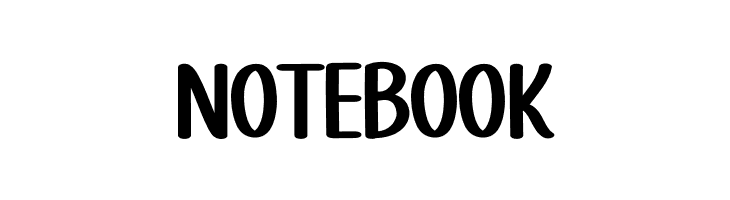
• NOTE BOOK 字体
( Fonts by Andi Moz )
A playful, rounded font with bold, smooth curves and a friendly appearance.
• Note Kids School 字体
A playful, handwritten font with bold, rounded characters and a whimsical style.
• Note Kids School 字体
A playful, hand-drawn font with bold, rounded characters perfect for fun and creative projects.
• Note Kids School Italic 字体
A playful, handwritten font with a bold, rounded style and slight slant.
• Note Kids School Italic 字体
A playful, handwritten font with bold, rounded letters and a slight slant.
• Note Marker 字体
( Fonts by Excellent Ritma Florendia )
A casual, handwritten font with smooth, consistent strokes and a playful appearance.
• Note Of Terror 字体
( Fonts by Mr Fisk - Mike Larsson - fontorama.net )
A bold, playful font with outlined characters and a comic book style.
• Note Planner 字体
A playful, handwritten font with tall, narrow letterforms and consistent stroke width.
• Note this 字体
• noteame 字体
A bold, rounded font with a modern, playful aesthetic.